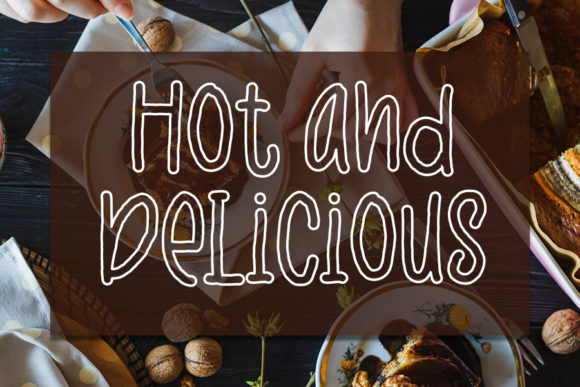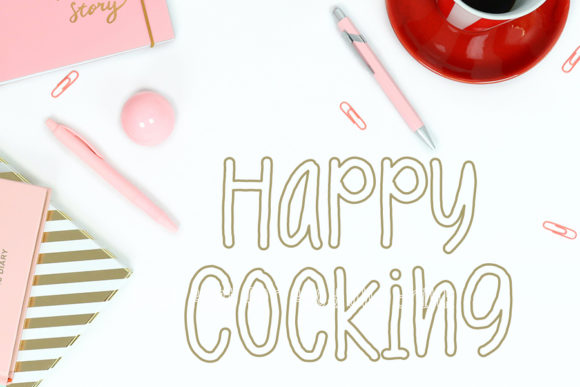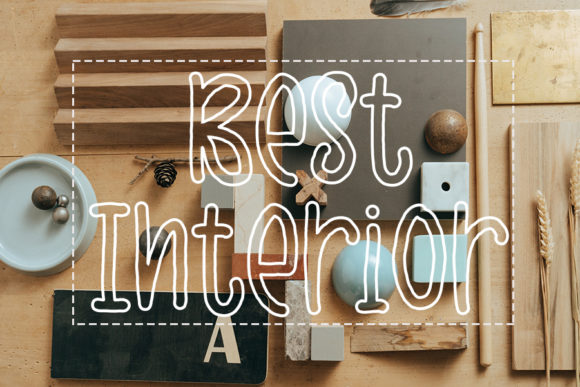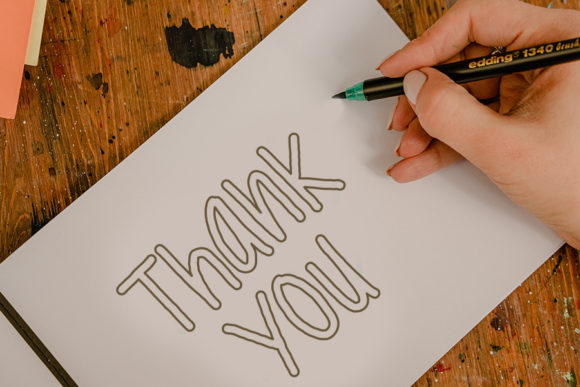
Introduction to Crispy Chicken Font
You’ve spent hours brainstorming the perfect concept for your creative project, and finally, the moment of truth arrives – it’s time to bring your idea to life with typography. As you browse through your design resource library, one font stands out among the rest: Crispy Chicken Font. Its friendly and approachable vibe instantly catches your attention, making you wonder if this is the missing piece to elevate your design.
With its casual touch and distinct style, Crispy Chicken Font is perfect for designers looking to add a fun twist to their projects. Whether you’re working on a project that requires a transparent background or a high-quality visual, this font is sure to impress. And the best part? It’s available for free download, making it an invaluable addition to any designer’s toolkit.
So, what makes Crispy Chicken Font so valuable to designers? Its unique blend of friendliness and sophistication makes it an ideal choice for a wide range of creative projects, from logos to social media graphics. In this article, we’ll delve into the world of Crispy Chicken Font and explore why it’s a must-have for any designer looking to take their work to the next level.
Key Features of Crispy Chicken Font
- Unique, hand-drawn design with a fun and playful touch, making it perfect for creative projects.
- Comes in two font styles: regular and bold, allowing for versatility in design.
Honest Review: Crispy Chicken Font
I recently came across the Crispy Chicken Font, and I have to say, it’s been a game-changer for my creative project. The font is perfect for adding a fun, playful touch to my designs.
- ✨ Unique and quirky design that sets it apart from other fonts
- ✨ High quality and crisp typography, even when scaled up or down
- ✨ Transparent background, making it easy to use on any design background
However, there are a few limitations I’ve noticed:
- ⚠️ Limited character set, so it may not be suitable for long-form text
- ⚠️ Not as versatile as other fonts, so it may not work well for all design projects
How to Use Crispy Chicken Font
Introduction to Crispy Chicken Font
The Crispy Chicken Font is a unique and creative design resource that can elevate your projects to the next level. This high-quality font is perfect for designers looking to add a touch of whimsy and fun to their work.
Tips for Getting the Most Out of Crispy Chicken Font
To get the most out of the Crispy Chicken Font, experiment with different font sizes, colors, and combinations. You can also use it in conjunction with other design elements to create a cohesive and eye-catching visual identity.
The Crispy Chicken Font is perfect for a variety of creative projects, including social media graphics, blog posts, and marketing materials. Its playful and fun design makes it an excellent choice for projects that require a lighthearted and engaging tone.